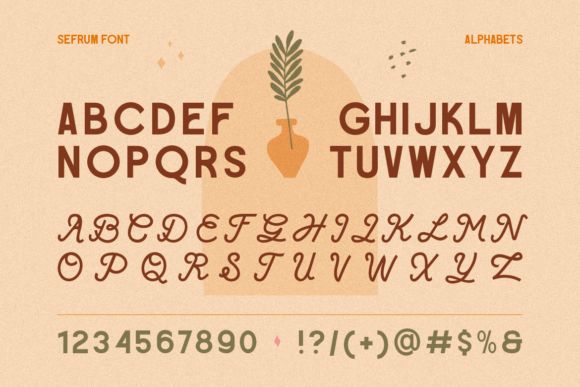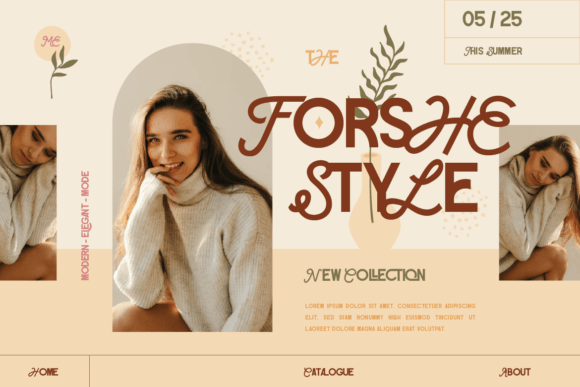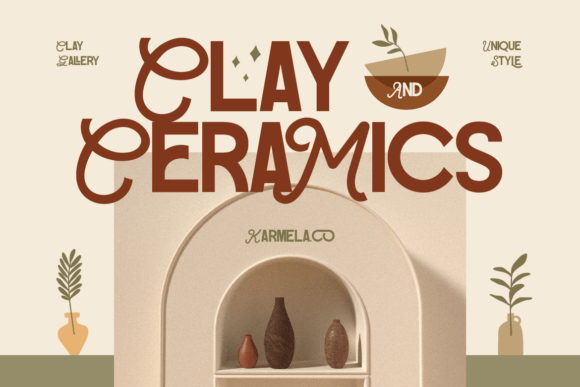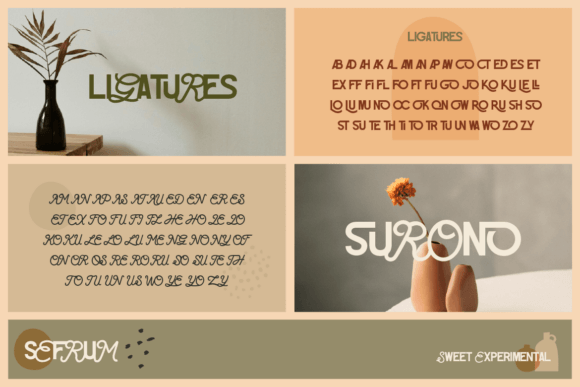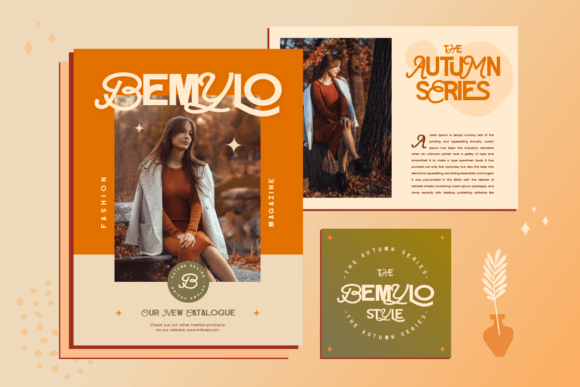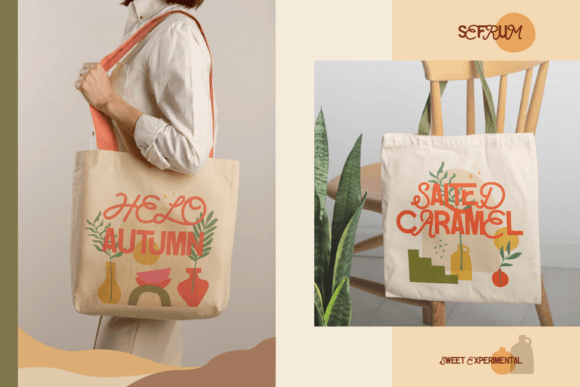
Introduction to Sefrum Font
Proudly present, Sefrum, a hybrid typeface that blend sans serif and script.
It creates a unique visual identity that balances modernity and elegance The sans serif portion offers clean, geometric lines, providing clarity and readability, while the script elements introduce flowing, cursive strokes that add a touch of sweet, warmth and personality.
Key Features of Sefrum Font